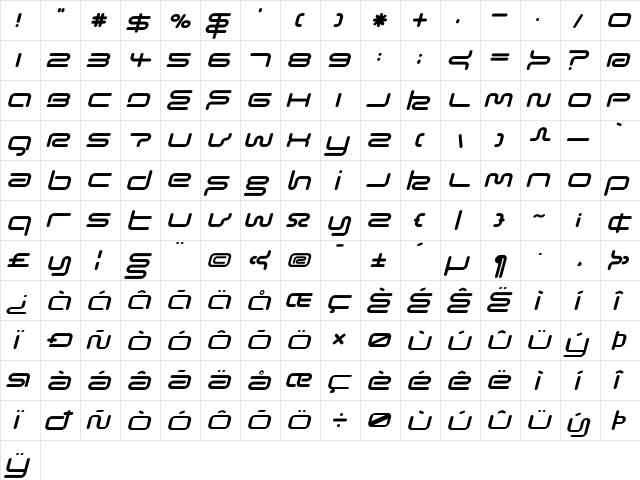
Euphoric Heavy Italic
Design Context for Euphoric Typeface
Euphoric offers clean, dependable letterforms without strong stylistic allegiance, making it a practical choice for designers who need flexibility. Its italic angle brings a sense of urgency and motion to the letterforms.
Pro Tip: Try Euphoric for annotation and caption copy alongside an upright companion — the contrast in angle creates a dynamic but ordered typographic system.